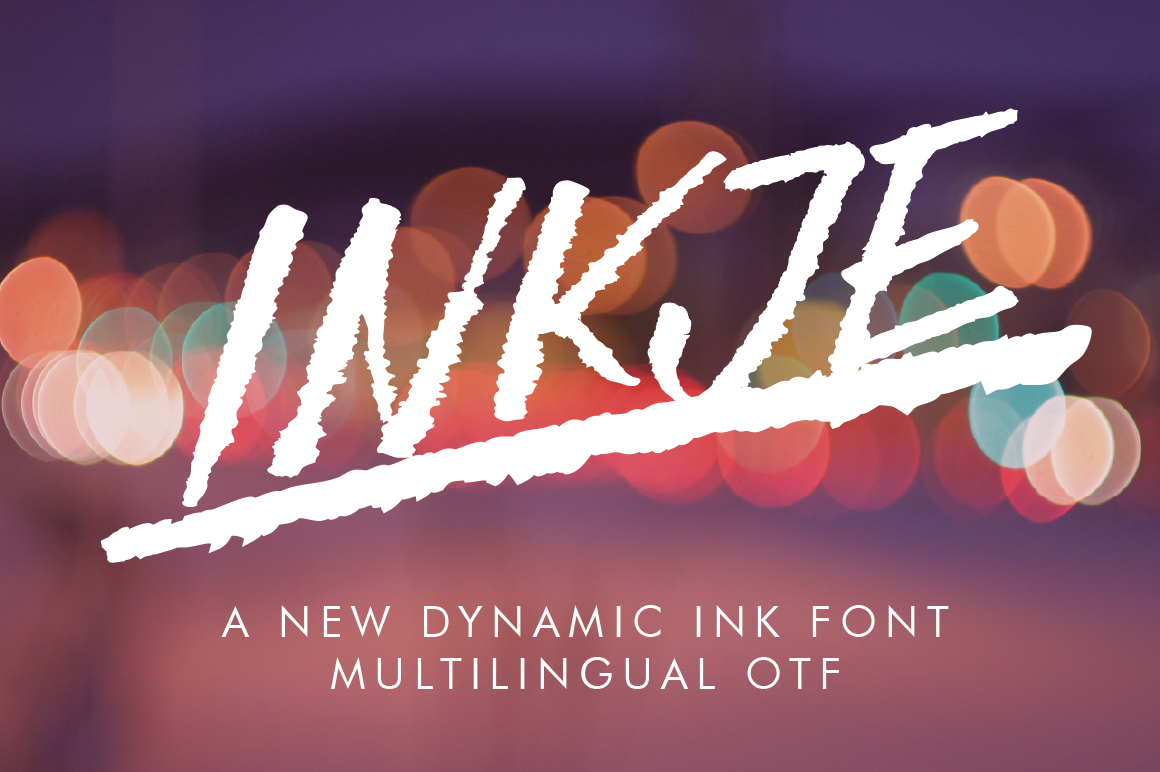
Inkje Italic Font
This font was made with tincan metal and ink too achieve these special edges. I like the randomness of the lines and the splattering of ink.